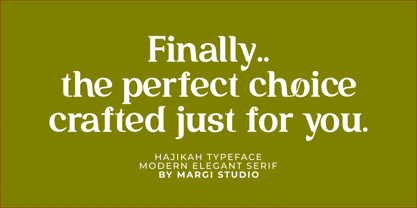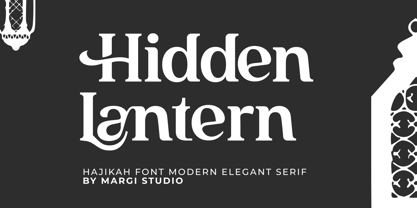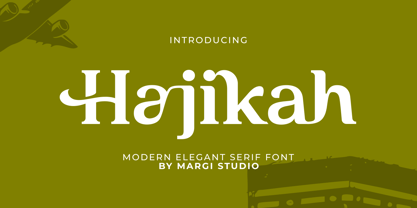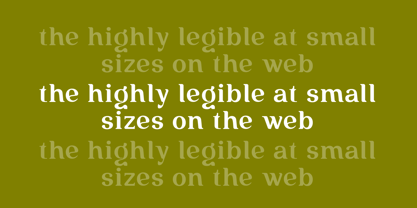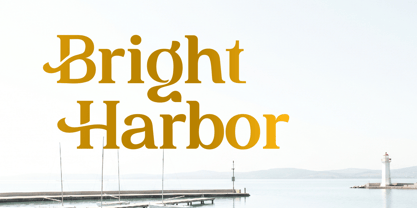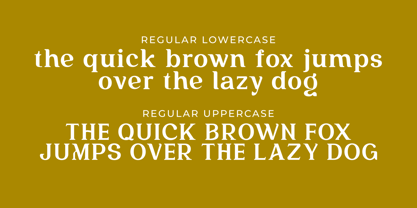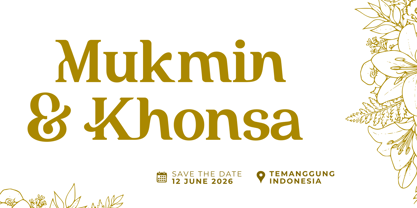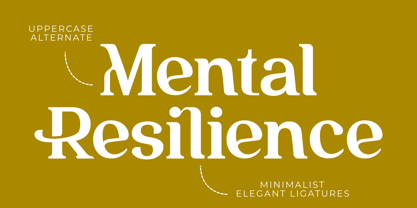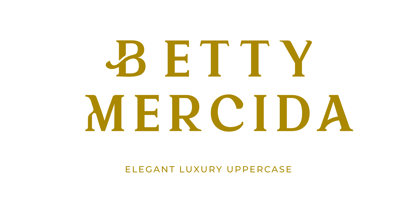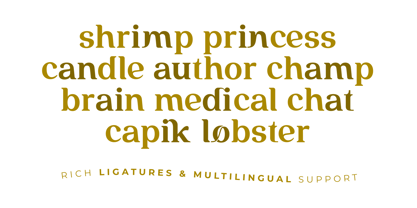
Hajikah
Hajikah - Modern Elegant Serif Font
Introducing Hajikah, a premium modern elegant serif font exclusively designed by Margi Studio. This font perfectly blends contemporary design with a charming touch, making it the ultimate choice for your various creative projects.
By carrying a modern elegant serif style, Hajikah provides a classy and versatile aesthetic suited for all your professional design needs.
Key Features:
• Complete Characters: Comes with clean and neat lowercase (Regular Lowercase) and uppercase (Regular Uppercase) formats.
• Uppercase Alternates: Elevate your typography with the uppercase alternate feature, giving a unique and captivating touch to your capital letters.
• Minimalist Elegant Ligatures: Featuring minimalist elegant ligatures that allow the connections between letters to flow naturally and aesthetically.
• Optimal Web Legibility: This font is meticulously designed to be highly legible even when used at small sizes on web platforms.
Perfectly Suited For:
• Wedding Invitations: Delivers a luxurious and romantic impression for your invitation cards or special events (Save The Date).
• Thematic Design & Branding: Perfectly fits visual projects with an elegant cultural theme, such as lantern-themed designs, hidden beauty concepts, or special celebrations.
• Web & Editorial Design: Thanks to its excellent readability at small sizes, this font is ideal for text on both digital interfaces and print media.
Make your design works look more stunning and classy with Hajikah, the best modern elegant serif font choice for your visual needs!